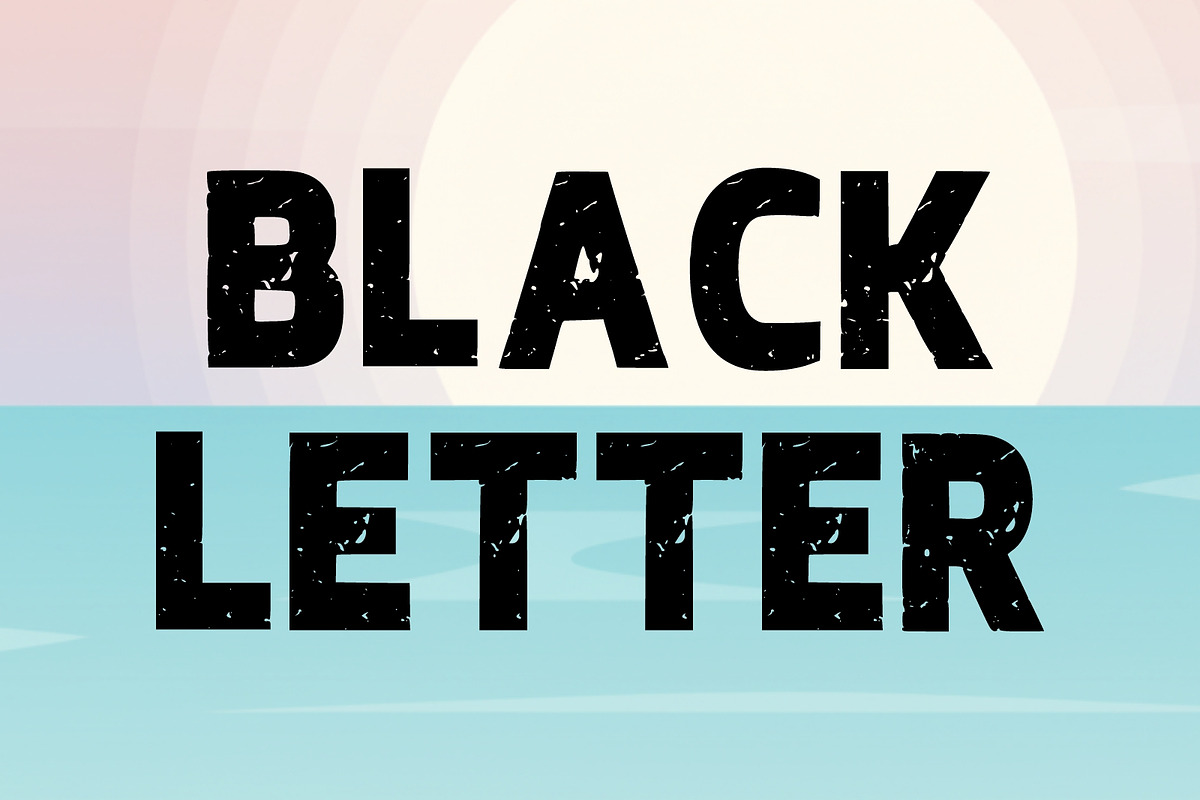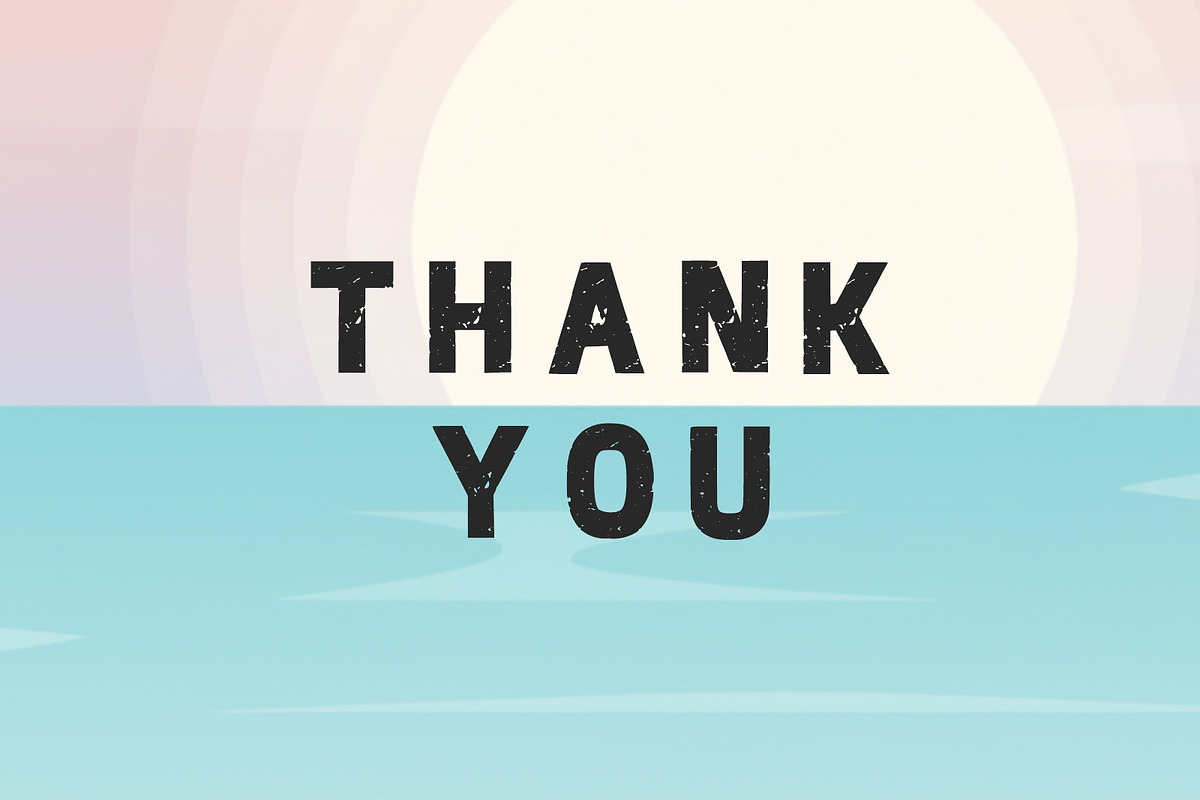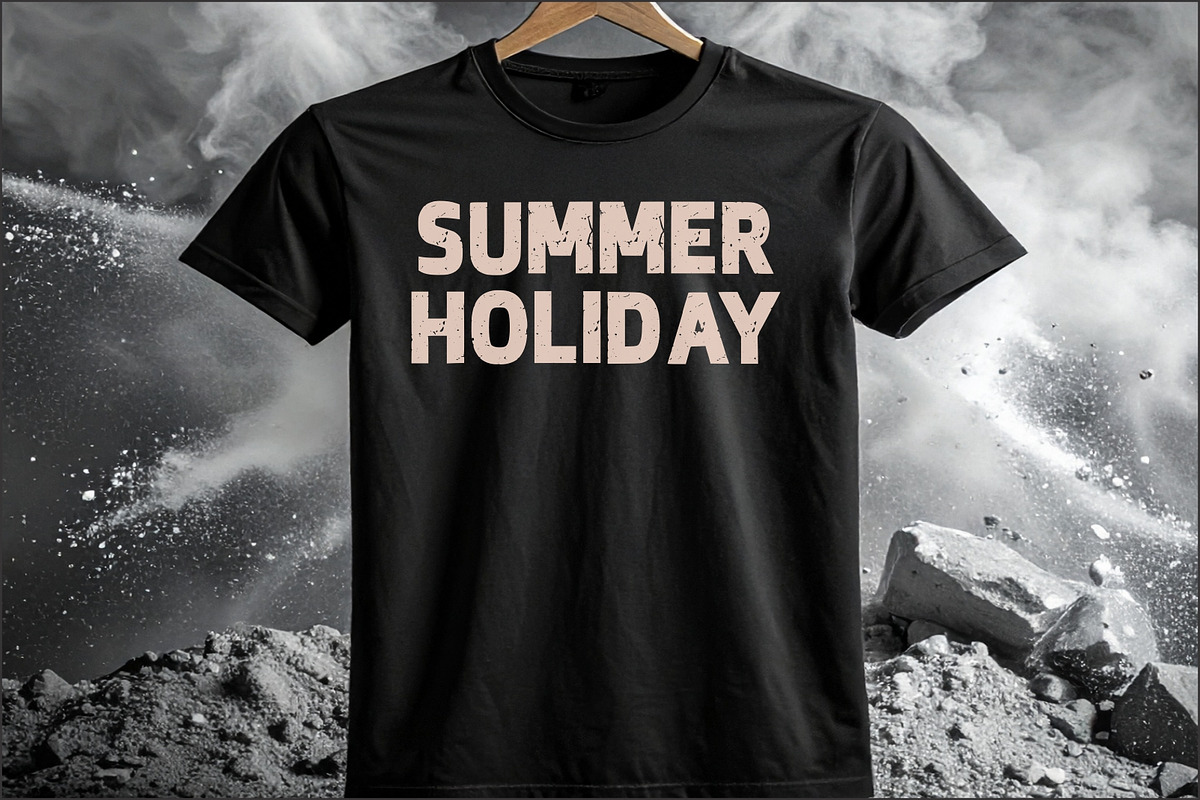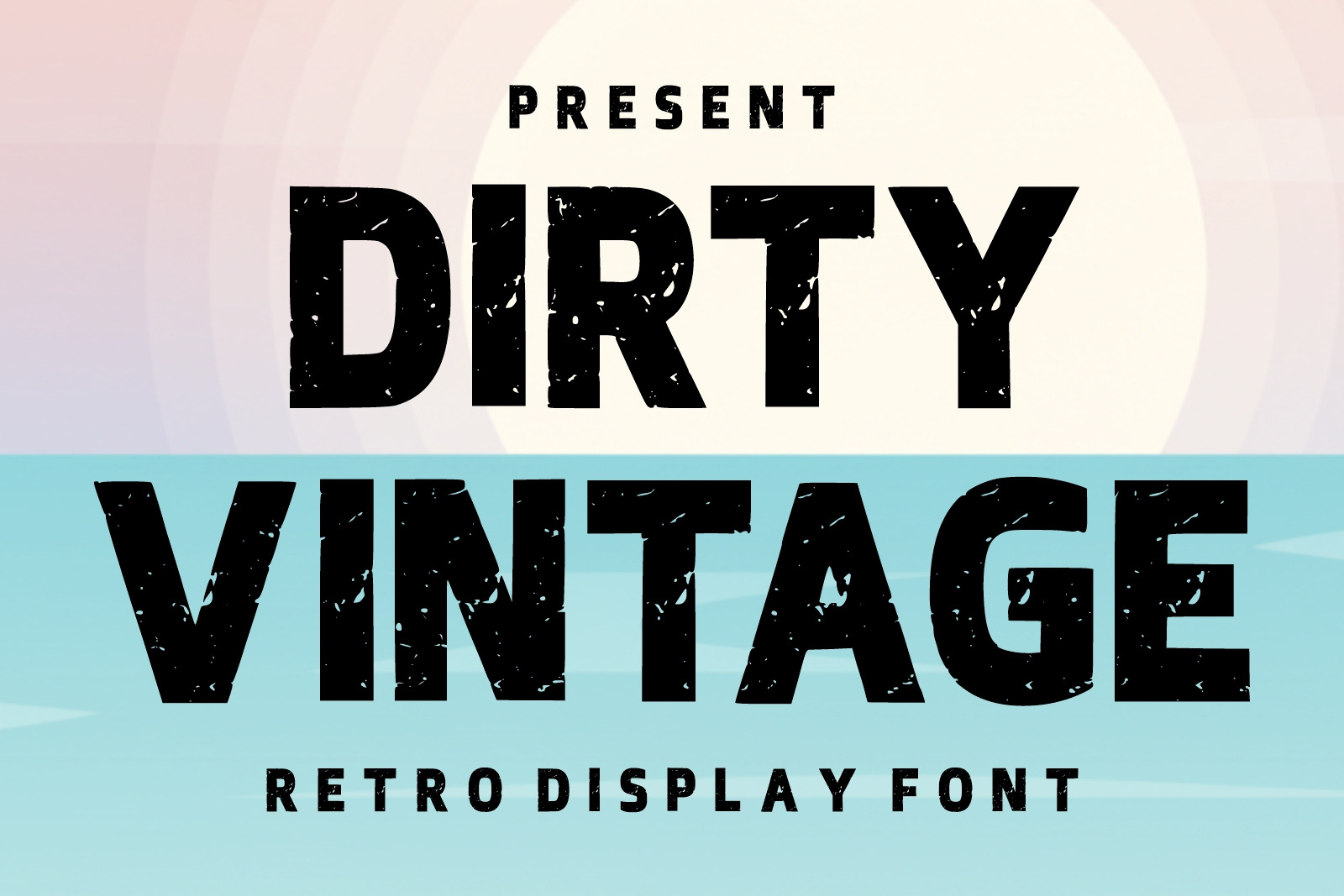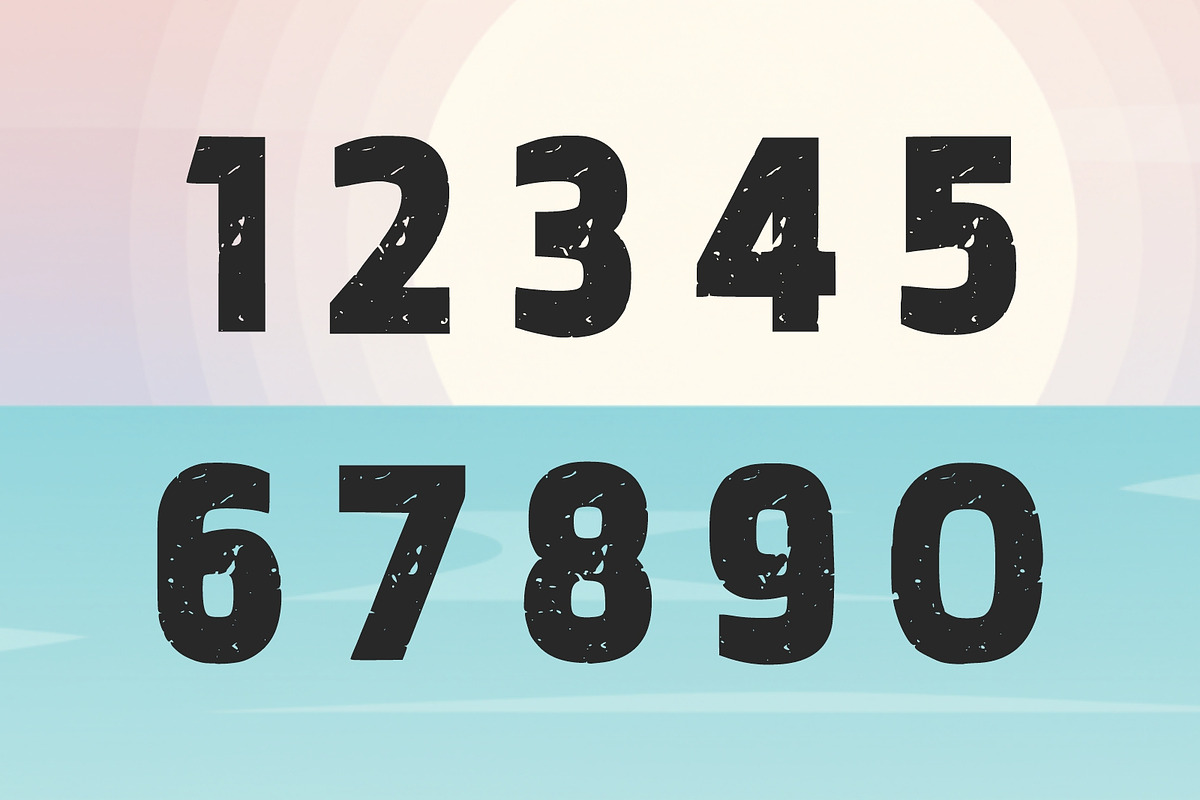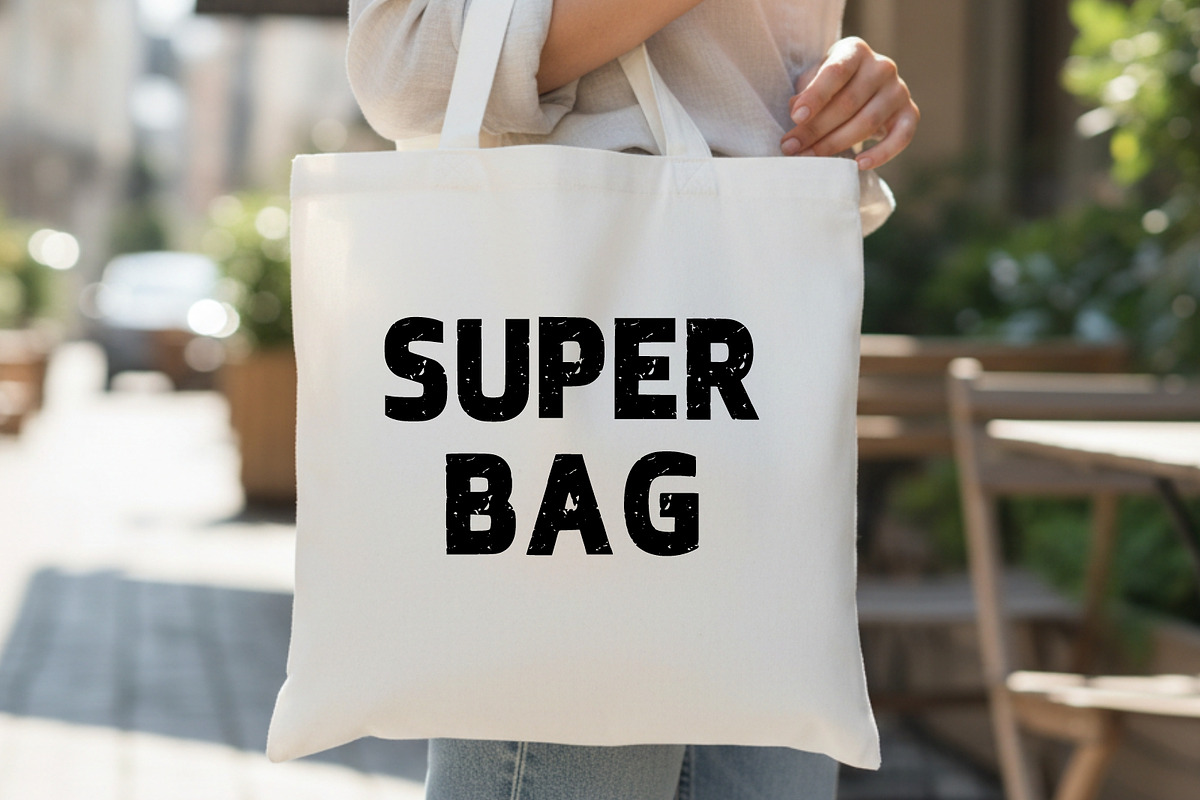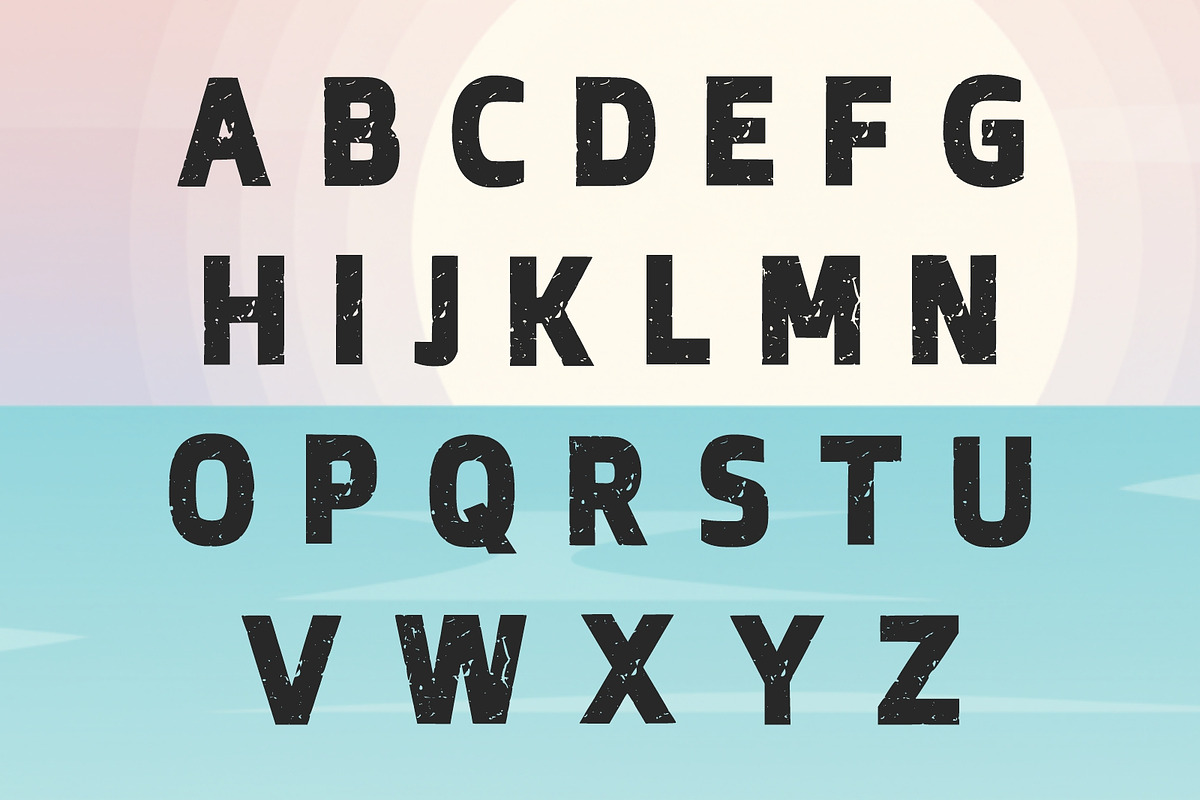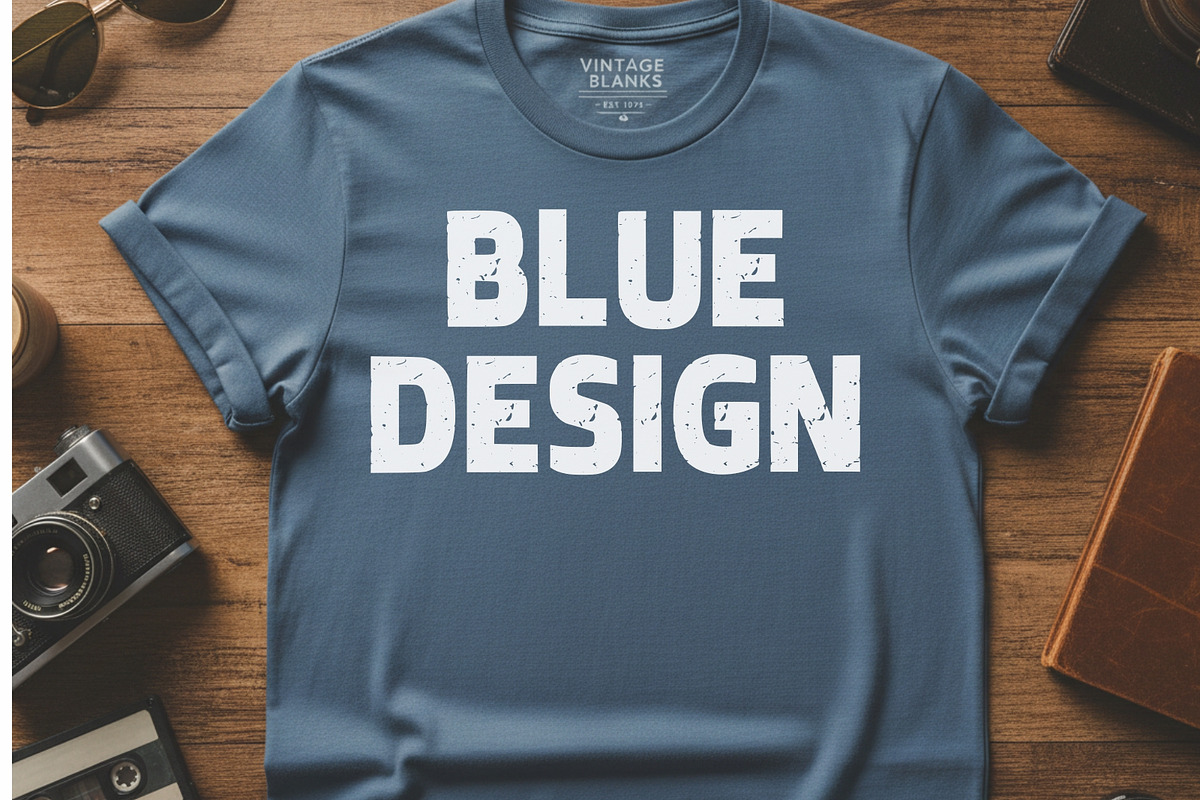
Dirty Vintage Retro Distressed Font
Dirty Vintage is a bold retro display font with a rugged distressed texture that gives an authentic vintage and worn-out look. Perfect for posters, branding, t-shirt designs, logos, packaging, music covers, retro advertising, and street-style projects. Its strong character and grunge details make every design feel classic, bold, and eye-catching.